Great design can inspire us, unite us, and give us hope.
Great design can ignite conversations and provoke change, wresting us out of ignorance.
In 1978 gay rights activist and artist Gilbert Baker set out to create a new symbol for the gay and lesbian movement to replace the pink triangle — a Nazi relic from World War II. Gilbert’s experience as an openly gay man in San Francisco and his work as a vexillographer gave him a unique opportunity to highlight the movement at a critical moent when LGBTQIA+ people were fighting for equal rights. Gilbert conceived of the Rainbow Flag, which he displayed at United Nations Plaza on June 25, 1978 to commemorate the San Francisco Gay Freedom Day Parade.
Gilbert channeled everything he knew and everything he loved into the design of the Rainbow Flag. He poured all his passion, skill, and hope into a flag which is now one of the most powerful symbols on earth. Since the Rainbow Flag’s first public unveiling in San Francisco in 1978, it has been raised countless times all over the world as a sign of empowerment and solidarity with the LGBTQIA+ community.
Gilbert passed away on March 31, 2017. Great designers are immortalized through their work, yet Gilbert’s contribution to the LGBTQIA+ movement earned him a distinctive form of recognition. To honor his legacy, Ogilvy New York, NewFest, and NYC Pride partnered with Fontself to create a free font inspired by the timeless design of the Rainbow Flag. Befitting the origins of the Rainbow Flag, this font was specifically designed for headlines and protest banners.
The name of this font? Gilbert. And this is its story:
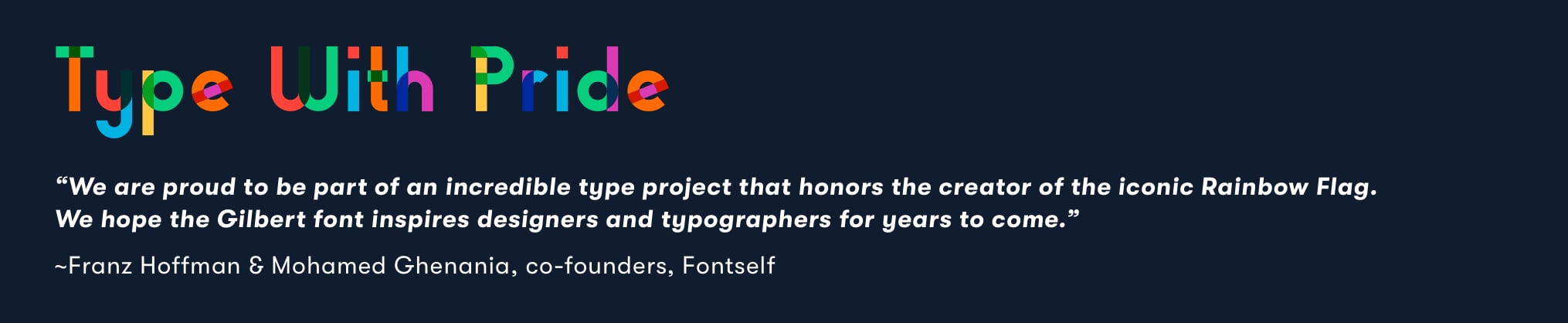
I wanted to learn more about this exciting typeface from the man who made it possible — Franz Hoffman, one of Fontself’s co-founders.
Andrew Rhodes: The story of how Fontself was invited to collaborate on the Gilbert font family almost defies belief. Have you ever experienced anything like that before?
Franz Hoffman: It was really a lifetime opportunity to collaborate on such a tribute font as Gilbert. It’s not every day that you get contacted to work on a project that has a universal meaning & impact; so while we had never considered publishing a font ourselves, we made this one exception to ensure this typeface would come to life.
The colorful design that Ogilvy’s team had come up with really resonated with what the Rainbow Flag creator, Gilbert Baker had conveyed in his memorable flag. It was obvious we needed to jump in and work full steam to turn these gorgeous letters into one of the very first color vector fonts ever created.
Today, we are really proud of this collective effort with Ogilvy New York, NewFest, and NYC Pride. Not only for the values it carries, but also because we are thrilled to see how this font is used all around the world..png?width=267&name=Franz-Hoffman-Headshot%20(1).png)
FH: In this case and in many other creative endeavors, an arbitrary deadline helped to set the pace and ensured that something tangible and valuable was delivered. But we’re always happily surprised when a subsequent delay is allowed ;)
AR: The Gilbert font project had a lot of moving parts with a tight deadline. In your experience, what factors make it easier for complex creative projects to succeed?
It’s better to stick to a plan and deliver in due time, should you scale down the scope of the initial release to ensure improvements can be added gradually afterwards. The pressure will be lower on the team and an extra benefit is that this forces you to crystalize your value proposition.
The one drawback to this approach is that it will often result in compromises and frustration. To be honest, this might be a cost to bear for the long term, as some concessions are never recovered or forgiven.
So, whenever you’re hitting these issues, remember it’s better to have creative projects that are alive in the wild than perfect plans that never come to fruition.
AR: When Fontself collaborated with Ogilvy New York, NewFest, and NYC Pride on the Gilbert font, it helped highlight one of the key figures in the fight for LGBTQIA+ rights. What other Fontself projects have called attention to cultural shifts like this one?
FH: To date, the Gilbert font is the most iconic design that we have been privileged to contribute to, and while we have seen many social uses of DIY fonts made with Fontself Maker, our font creation software, we believe that we are still at the early days of a new era: when fonts created by a general audience of makers, creatives and thinkers will be more universally and easily crafted and distributed.
That’s why we really want to help many more folks get started with type-making, so that more communities can embrace type as an additional medium to share their values and enrich their communications.
For every story an organization creates, for every message a designer wants to share, they need the right fonts to bring their vision to life. If you already know and love the Gilbert font, please share this article and spread the word. And if you’re just learning about Gilbert for the first time, this font is for you. This font is for all of us.
Design with pride, create with pride… and the next time you type, type with pride.